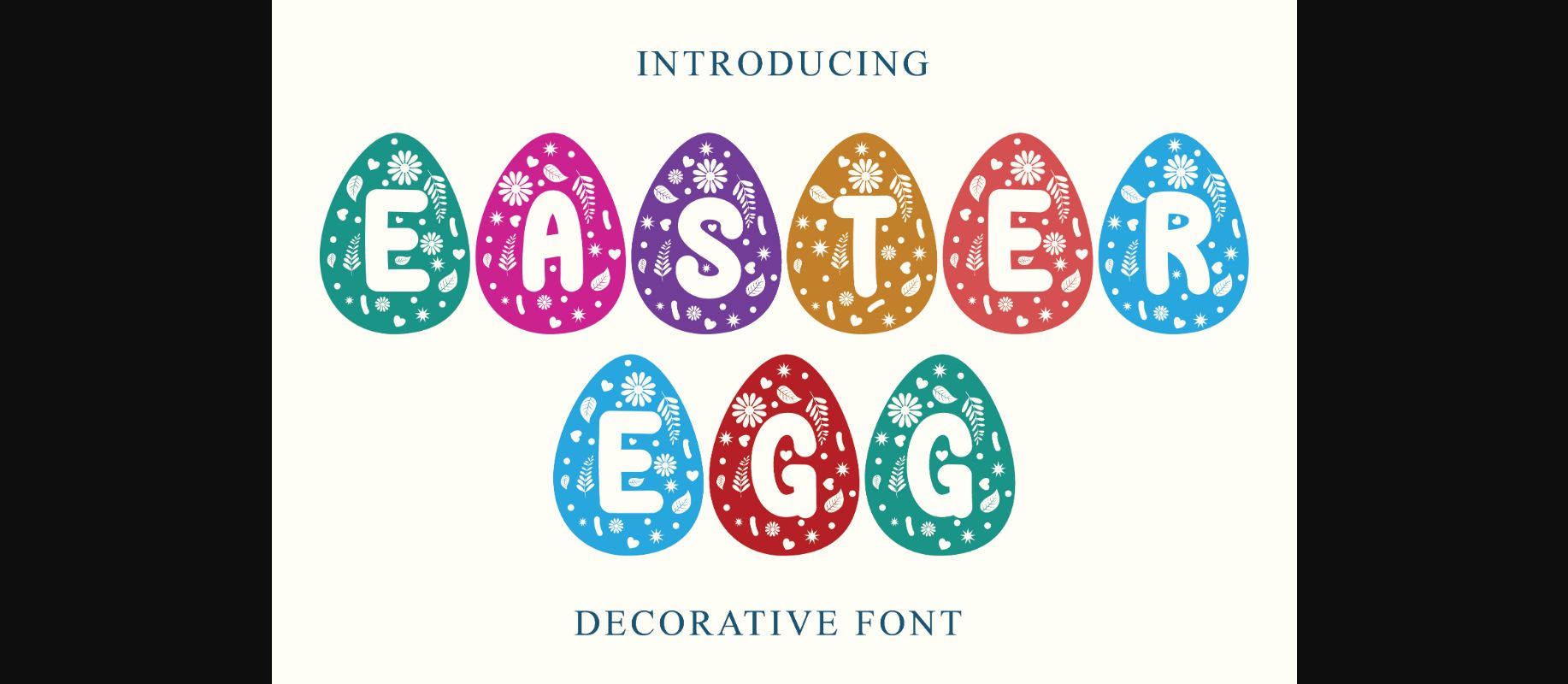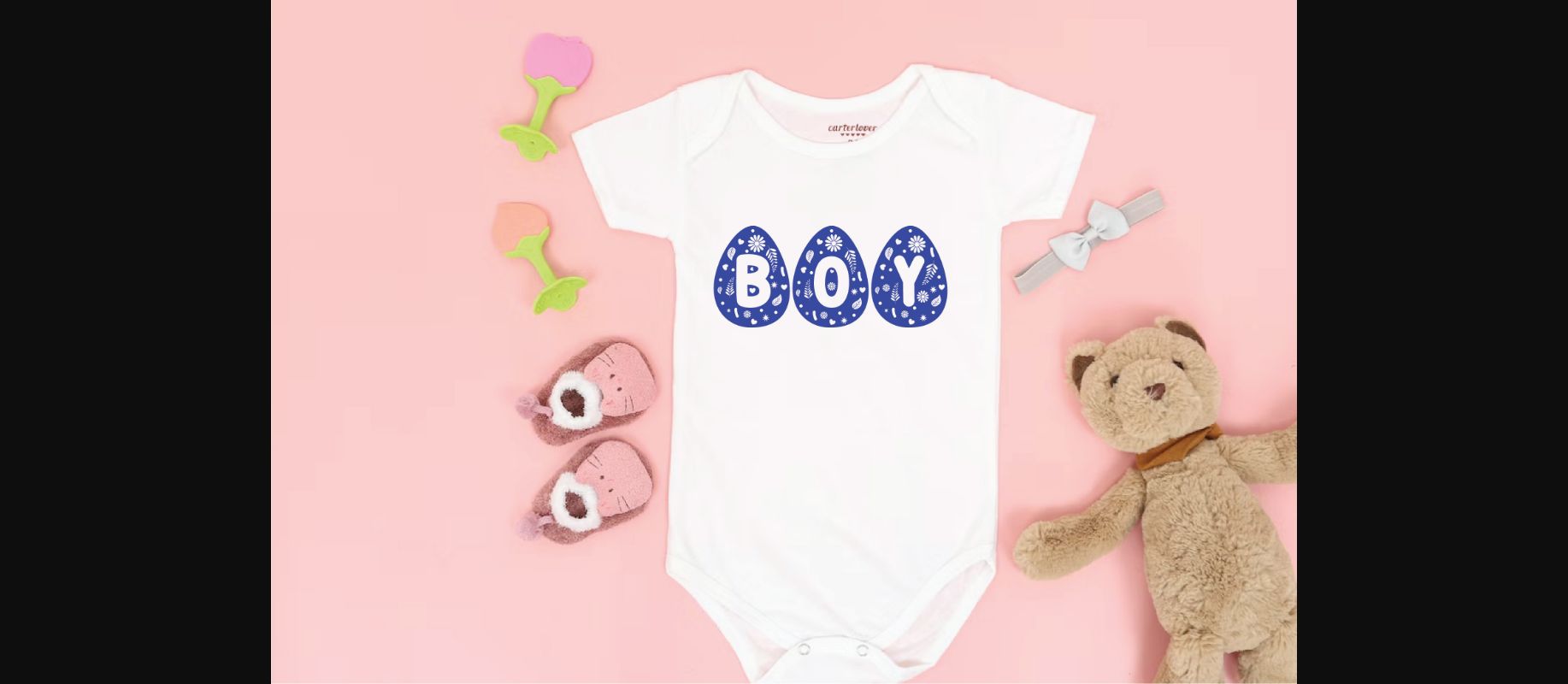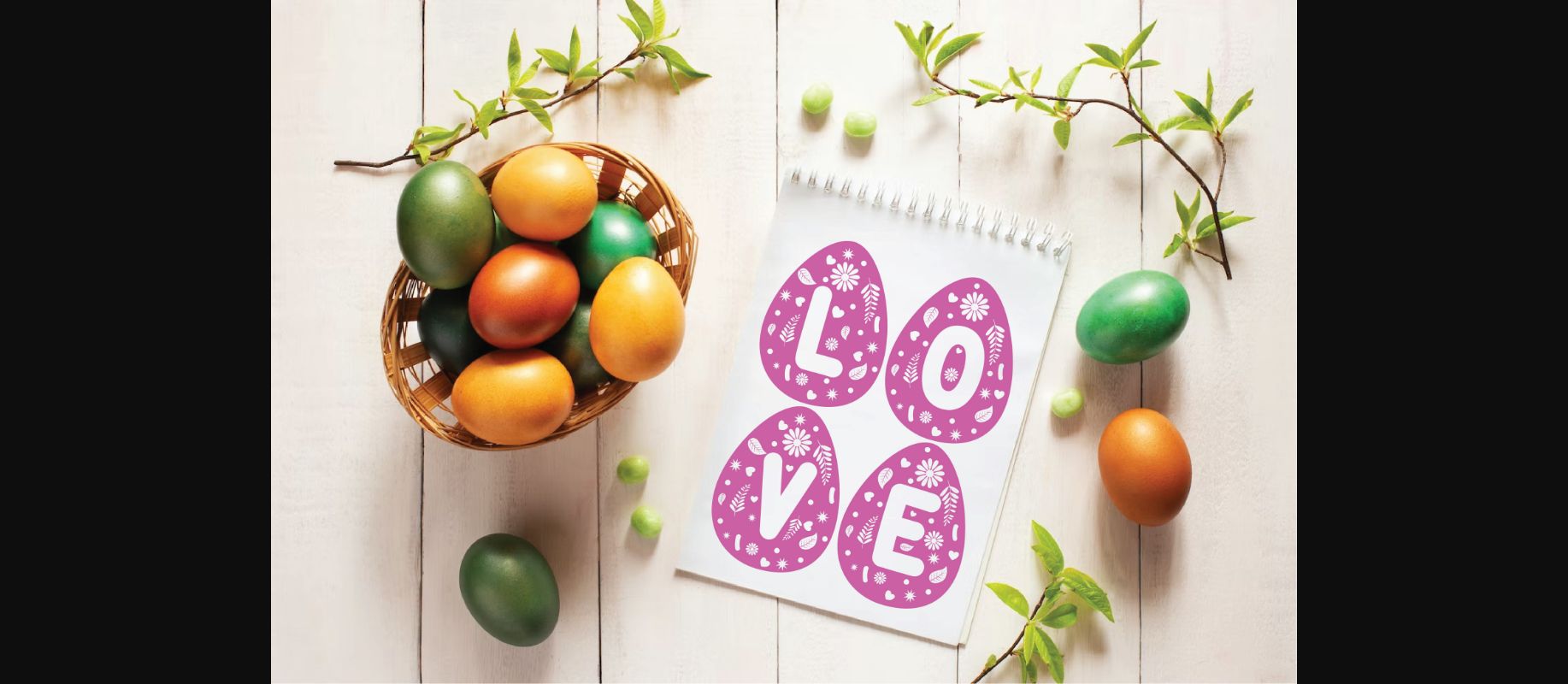
About Easter Egg Decorative Font
Easter Egg Decorative is a cool and uniquely crafted decorative font. Its fun and playful characters make it the perfect font for stickers, mugs, t-shirts, ornaments, Easter’s Day’s cards, event invitations, and many more! This font is PUA encoded which means you can access all glyphs and swashes with ease!